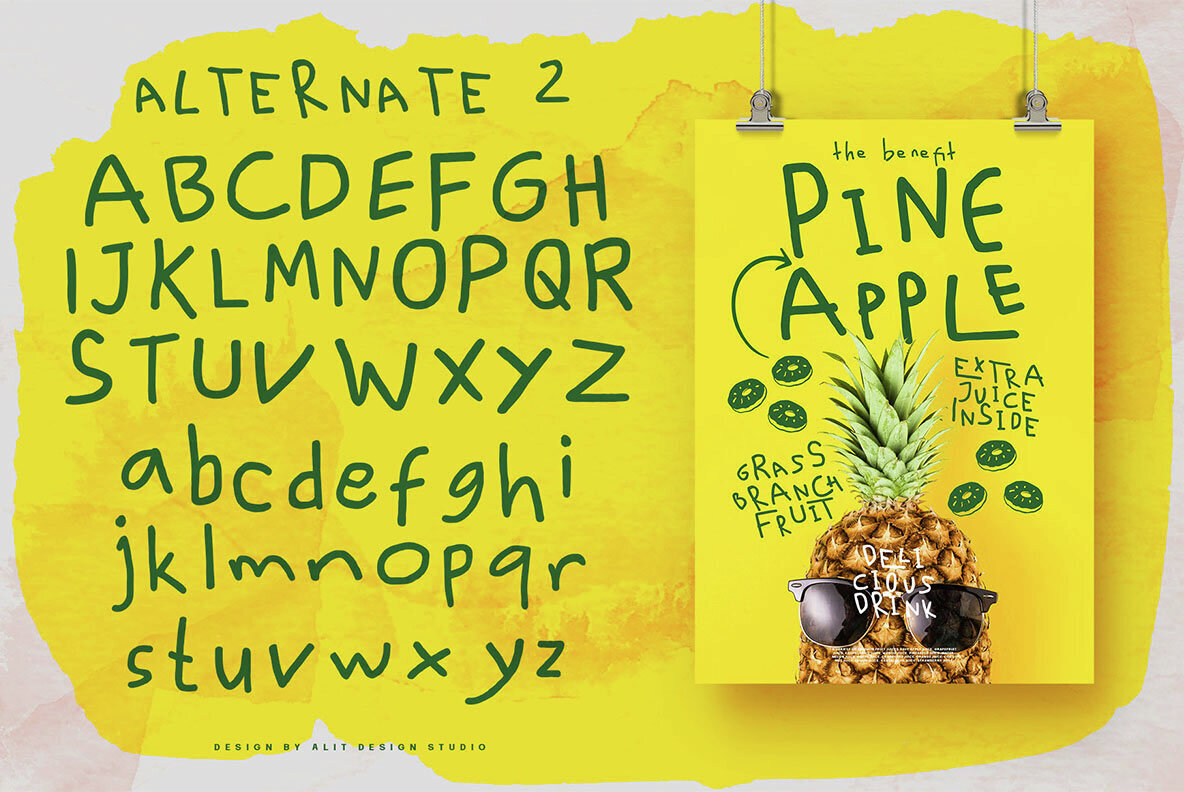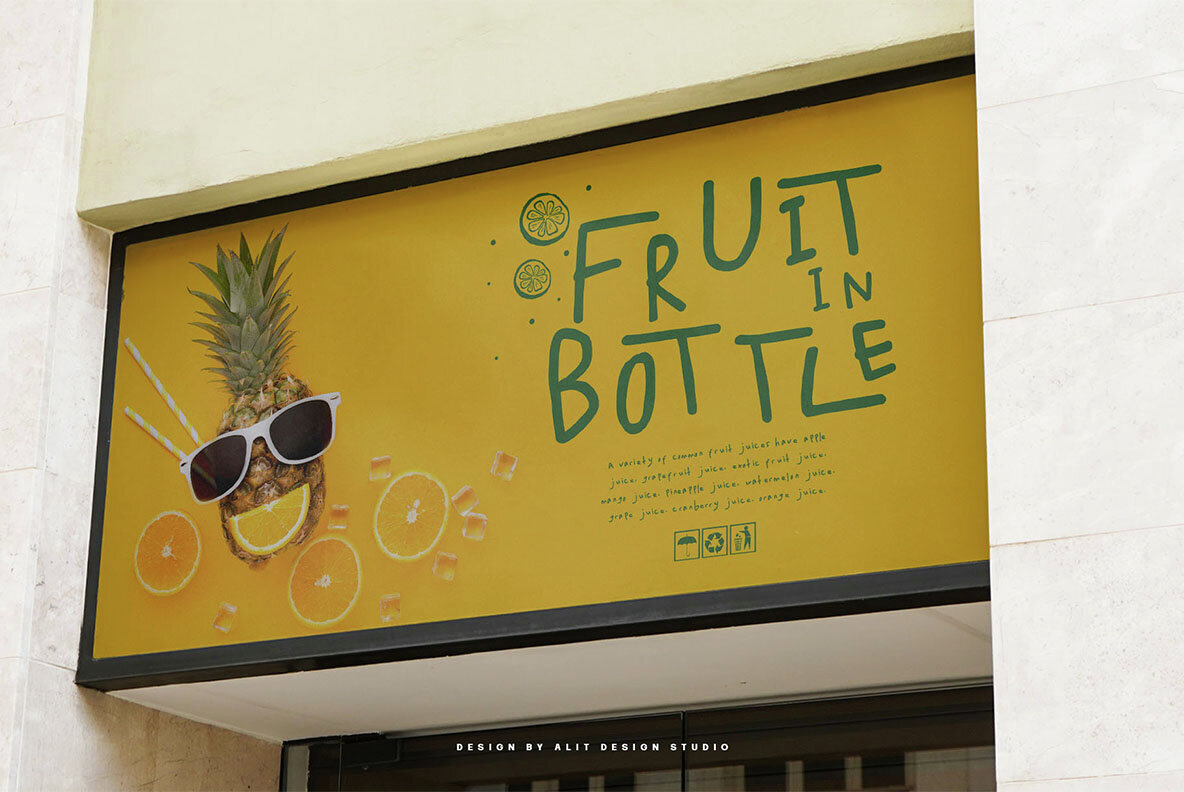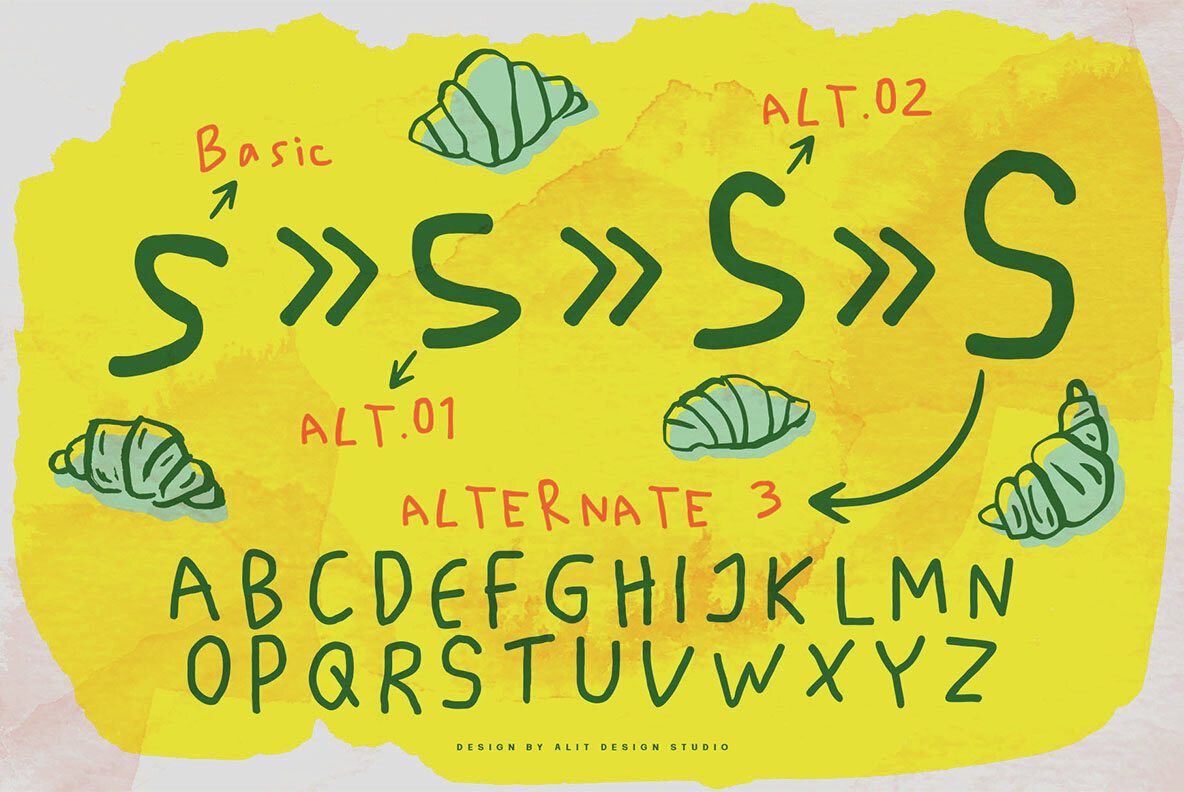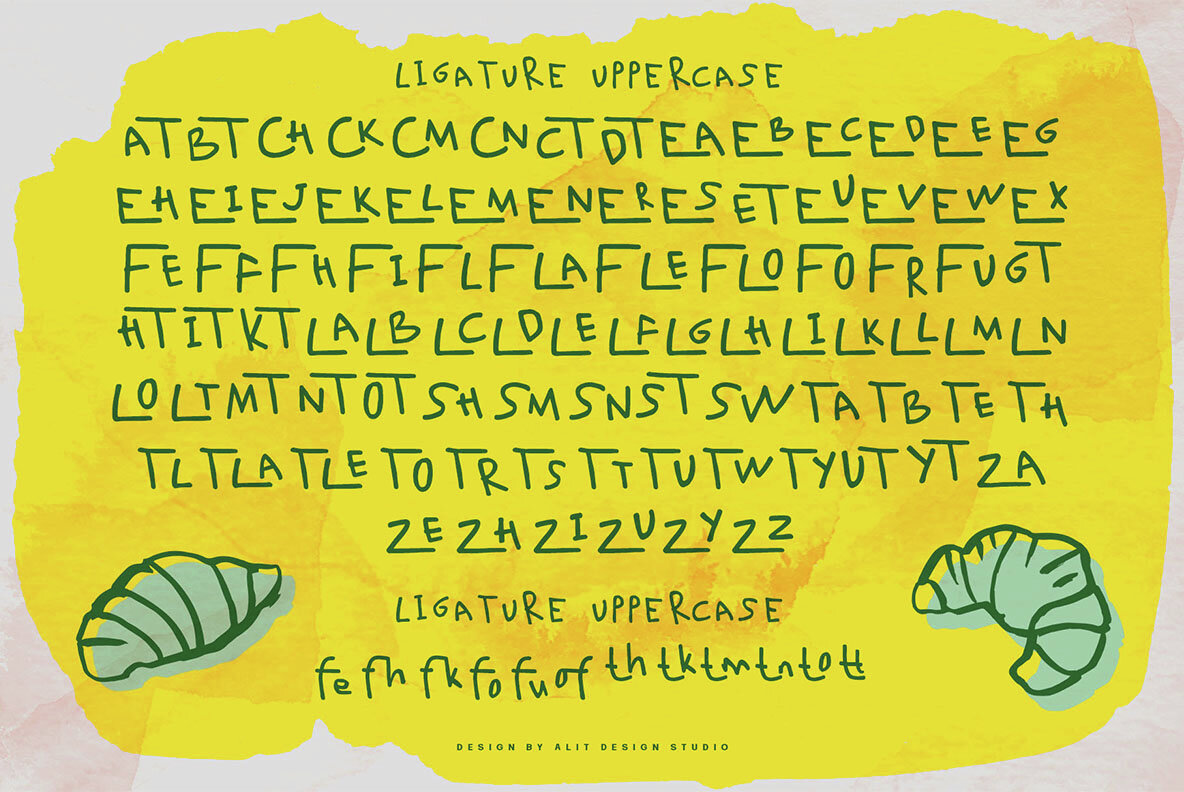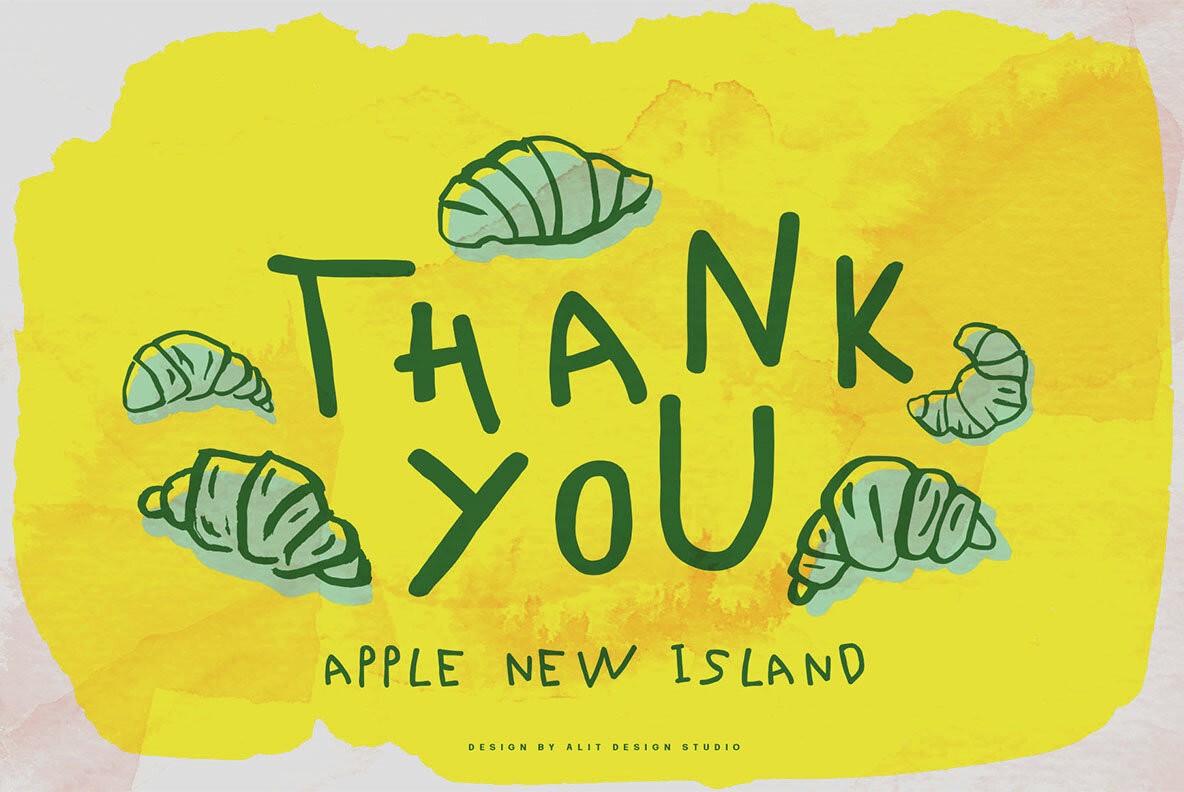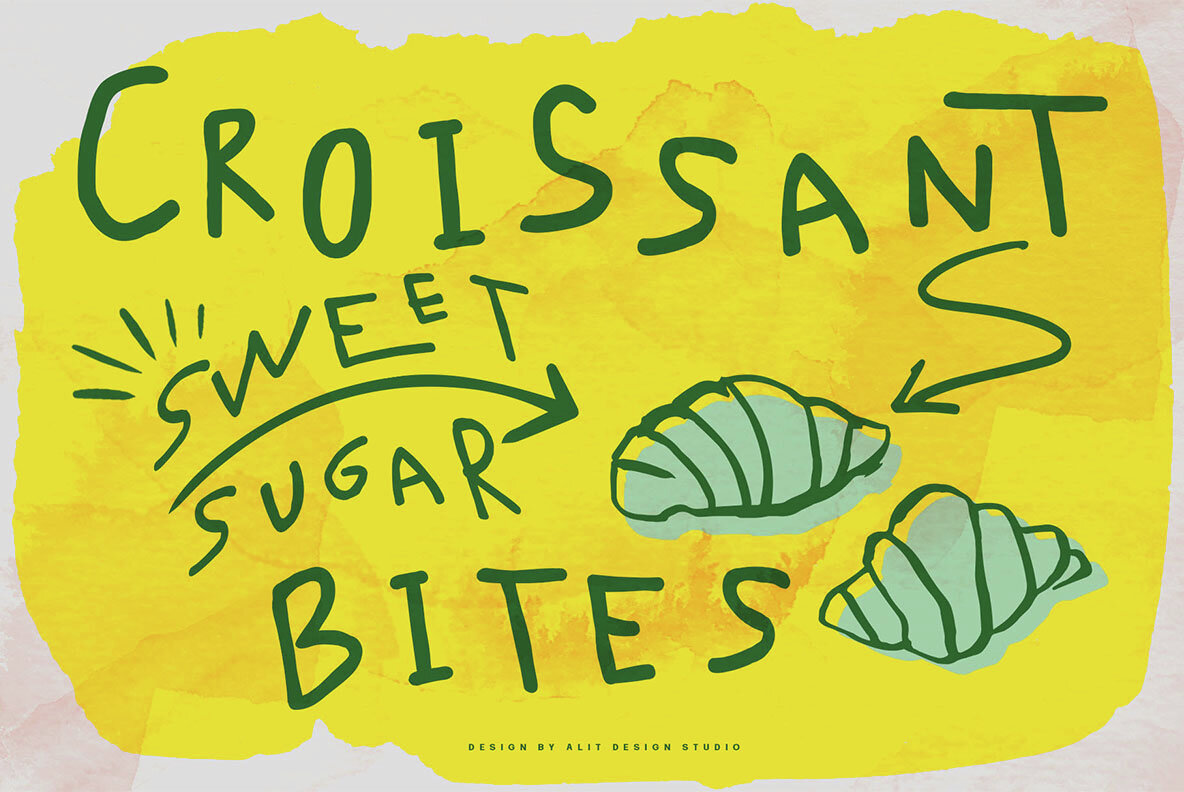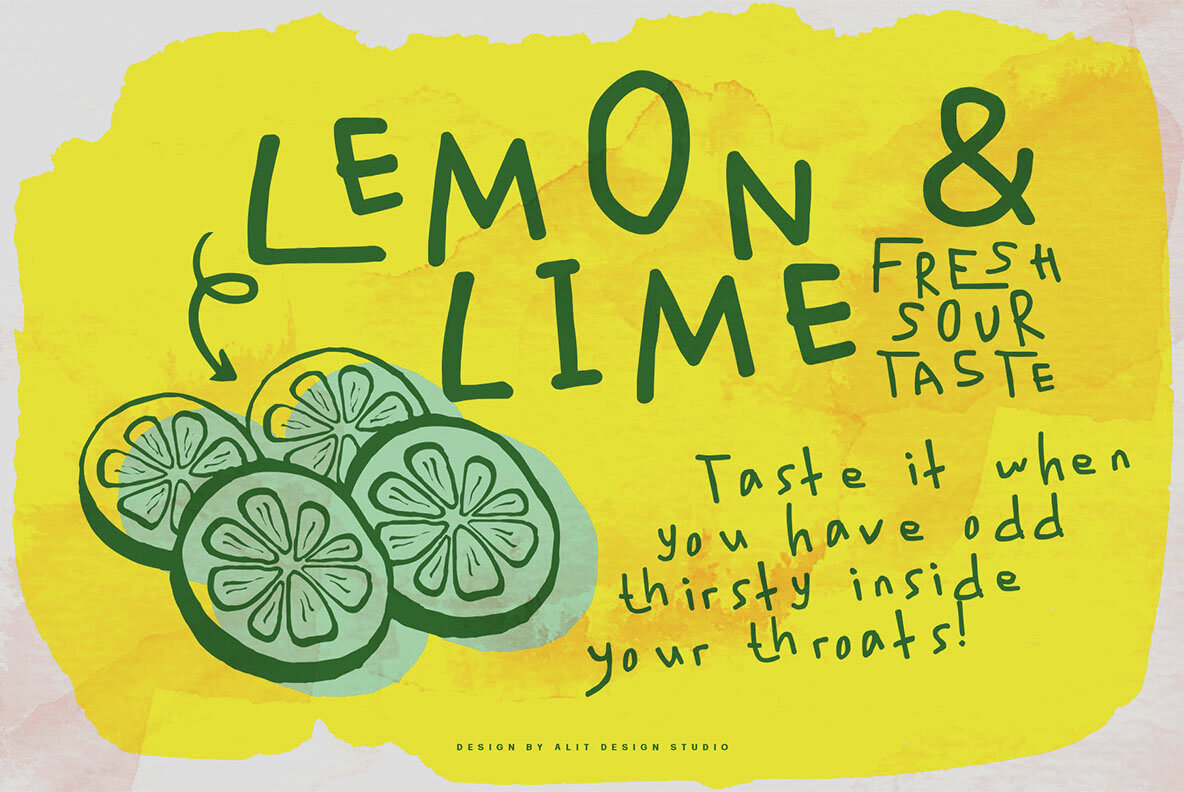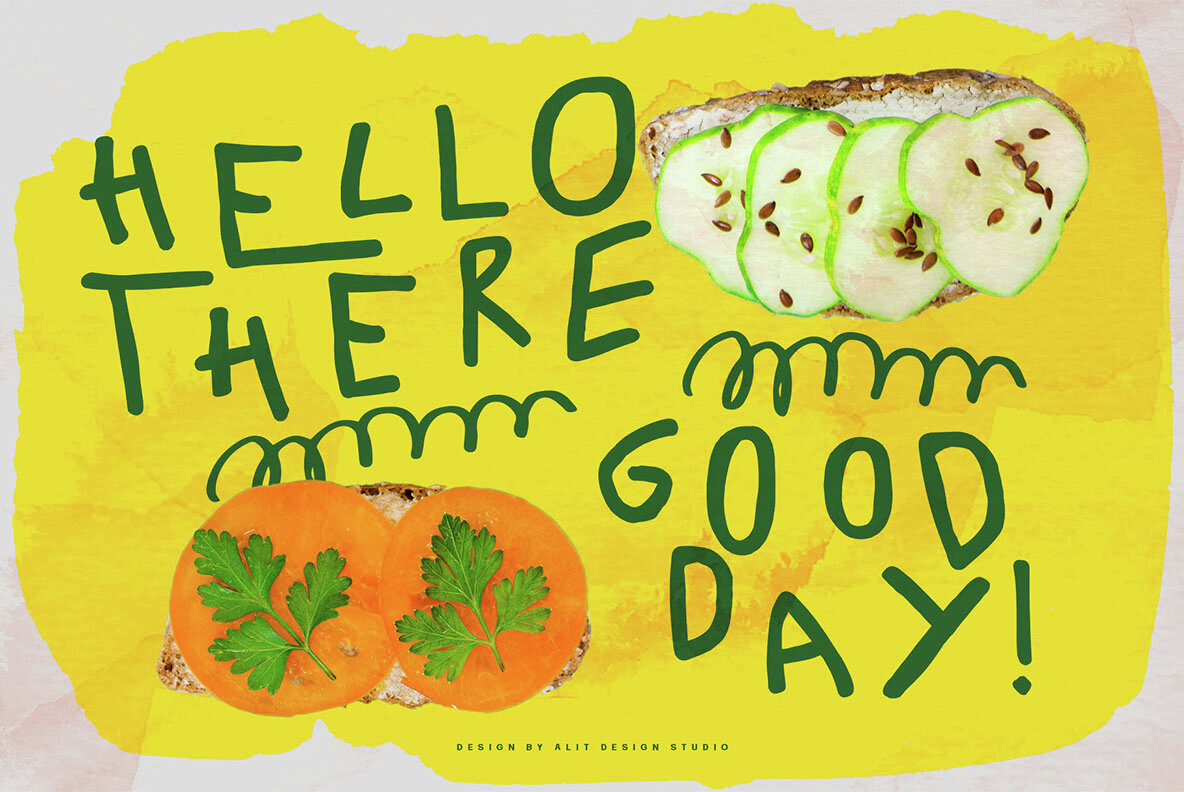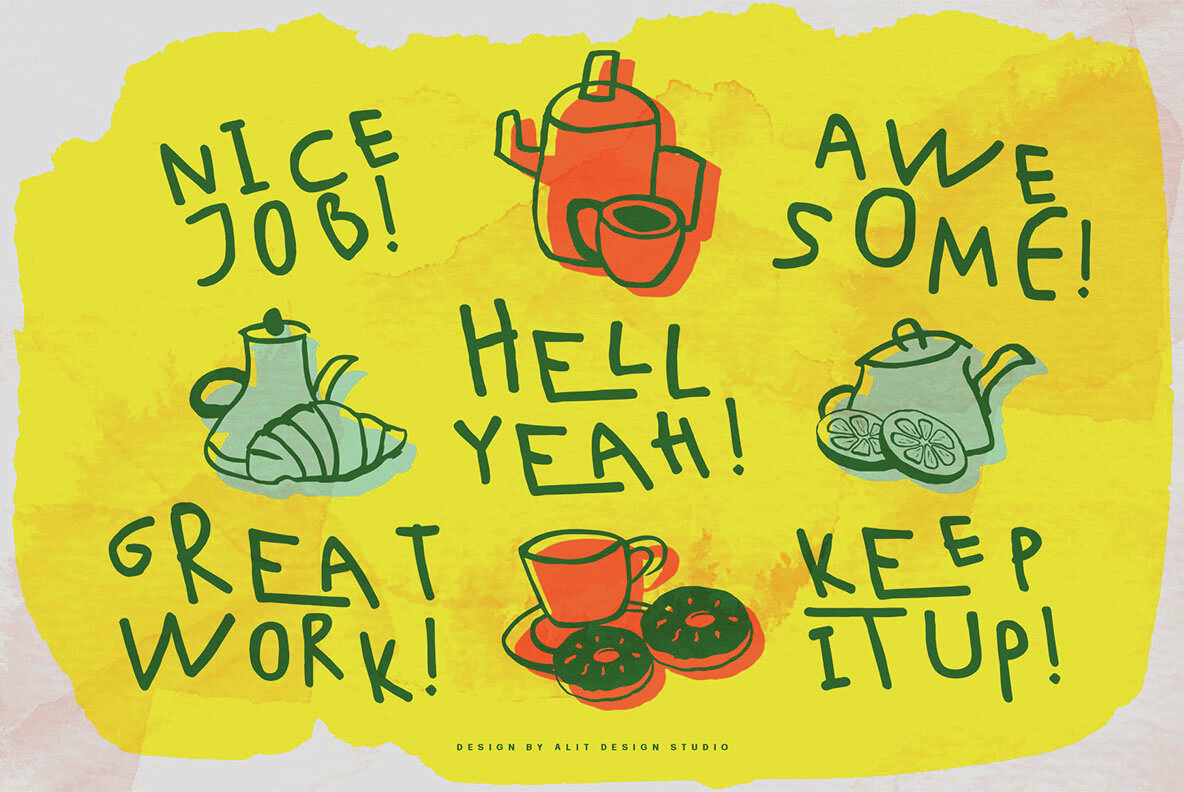
Apple New Island Font
Apple New Island is a handwritten sans serif font that brings whimsical elegance to your designs. It features: Perfect for branding, social media, and print materials, Apple New Island combines approachability with style. Download now and let your words dance off the page with this creative and elegant font.